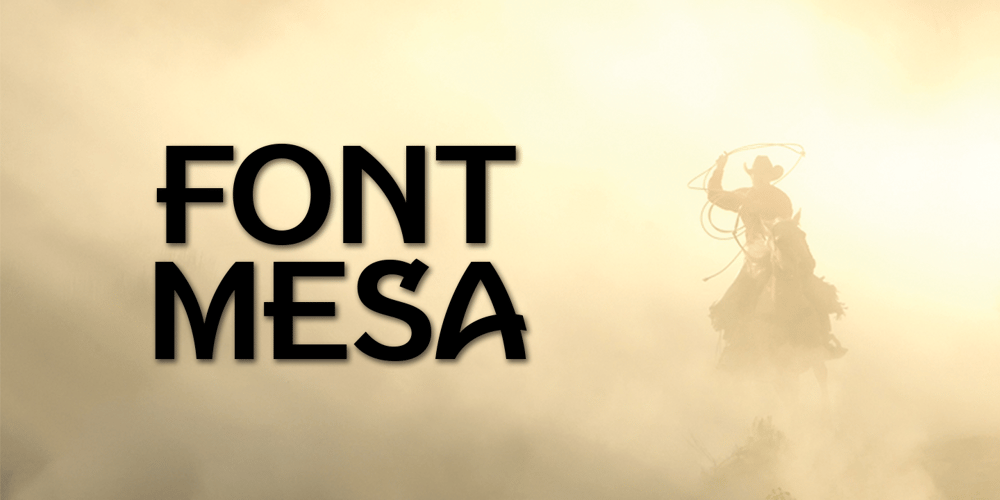
La Mesa
La Mesa font
La Mesa Font Family was designed by Michael Hagemann and published by FontMesa. La Mesa contains 2 styles and family package options. La Mesa is a bold font suitable for logos, letterheads & headlines. It also resembles the lettering used by the Miller Brewing Co.